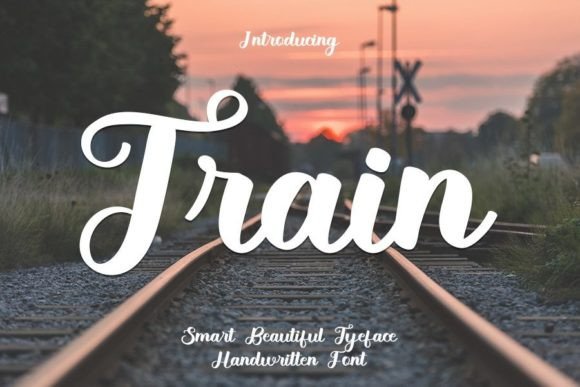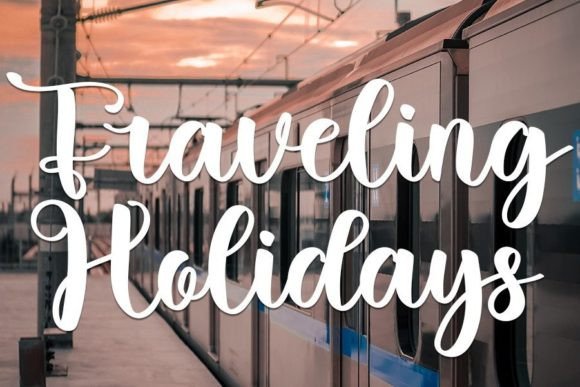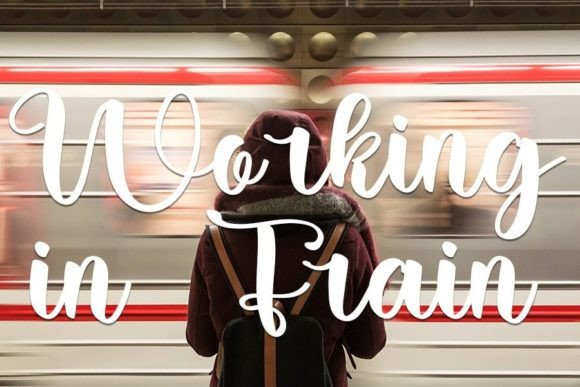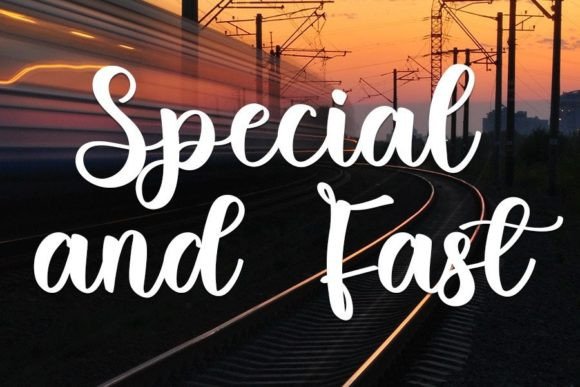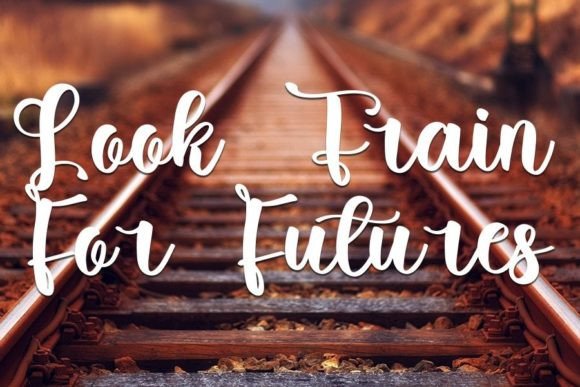
Train Font
About Train Font
**”Wonderful”** is not just a font; it’s a delicate masterpiece of handwritten elegance, meticulously crafted to bring authenticity and charm to your crafty projects. Its well-rounded characters and graceful strokes make it the ideal choice for a variety of creative endeavors that demand genuine typography. Whether you’re designing wedding invitations, birthday cards, personal branding materials, elegant logos, or any other project requiring an authentic touch, Wonderful effortlessly elevates your designs, ensuring they stand out from the competition.
Visualize your wedding invitations adorned with the delicate and well-rounded letters of Wonderful, each stroke radiating an air of refined grace. Picture your birthday cards, each word written in this font, expressing warmth and sincerity. Personal branding materials and logos gain a unique personality when designed with Wonderful, leaving a lasting impression on your audience.
Wonderful isn’t just a font; it’s a design essential that adds a touch of authenticity to your crafty projects. Its handwritten charm conveys a sense of craftsmanship and individuality, making your designs feel personal and genuine. The font’s delicate and well-rounded style becomes a visual signature, reflecting the care and attention you put into your creations.
In a world where authenticity is valued, Wonderful stands out as a symbol of genuine craftsmanship. Its well-rounded characters and delicate grace add an element of timeless beauty to your designs, making them memorable and impactful. When you choose Wonderful for your projects, you’re not just selecting a font; you’re making a statement—a statement of authenticity, elegance, and creativity.
So, whether you’re a professional designer striving for genuine typography or an individual with a passion for crafty creativity, Wonderful is your trusted companion. It’s more than just a font; it’s an opportunity to infuse your designs with the authenticity of handwritten elegance. Let Wonderful be the brush that adds genuine warmth to your creations and the handwritten touch that transforms your designs into heartfelt expressions. With Wonderful, your crafty projects are bound to shine with authentic charm and sincerity, setting them apart in a sea of ordinary designs.